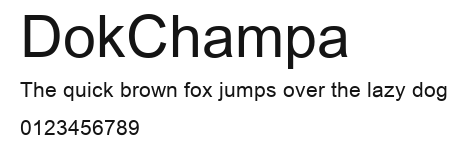
• Font Name: DokChampa
• Designer: Original design: Robin Nicholas, Patricia Saunders. Extended glyphs: Monotype Type Drawing Office, Monotype Typography.
DokChampa.ttf is a modern, elegant sans-serif font designed for ultimate readability and visual harmony. Perfect for branding, headlines, web design, and print materials.